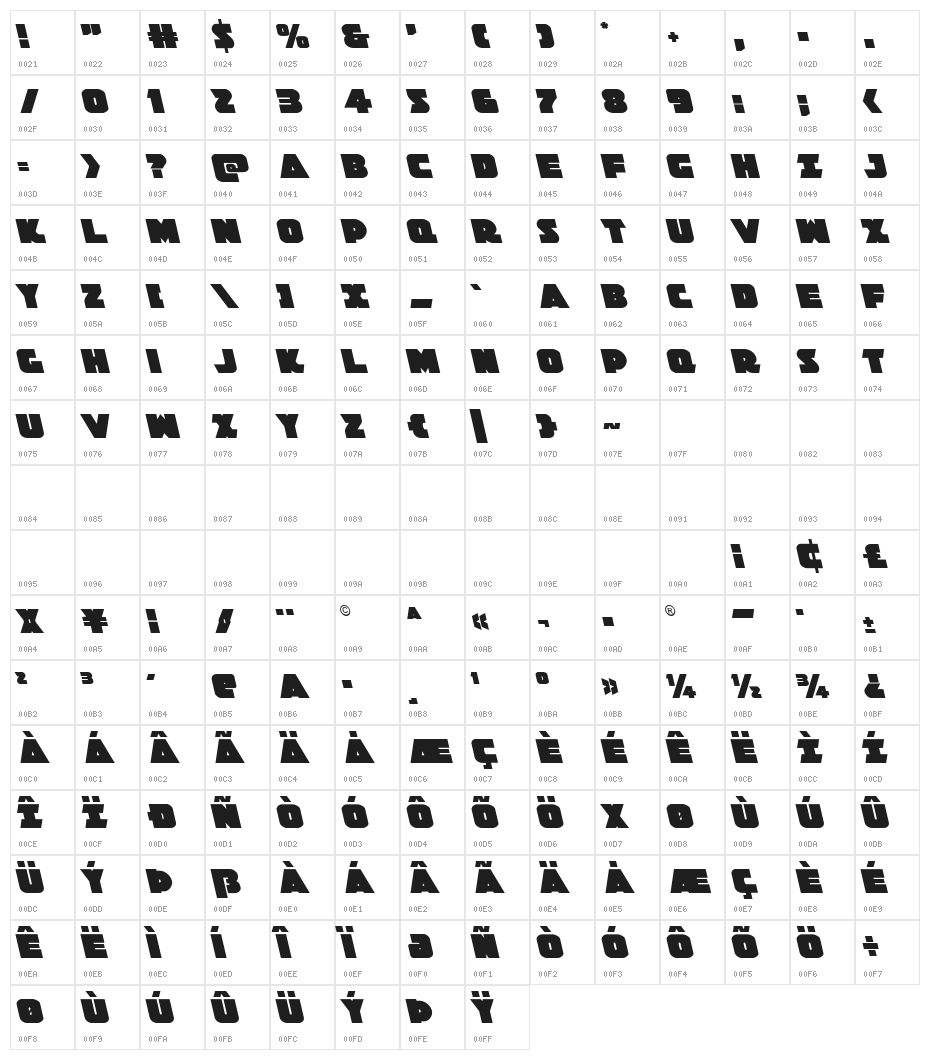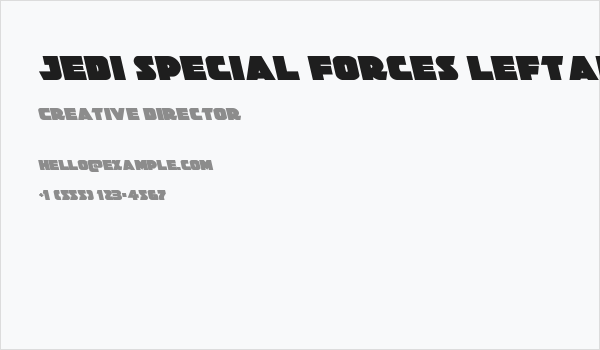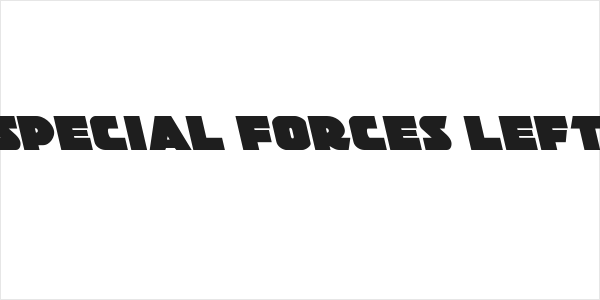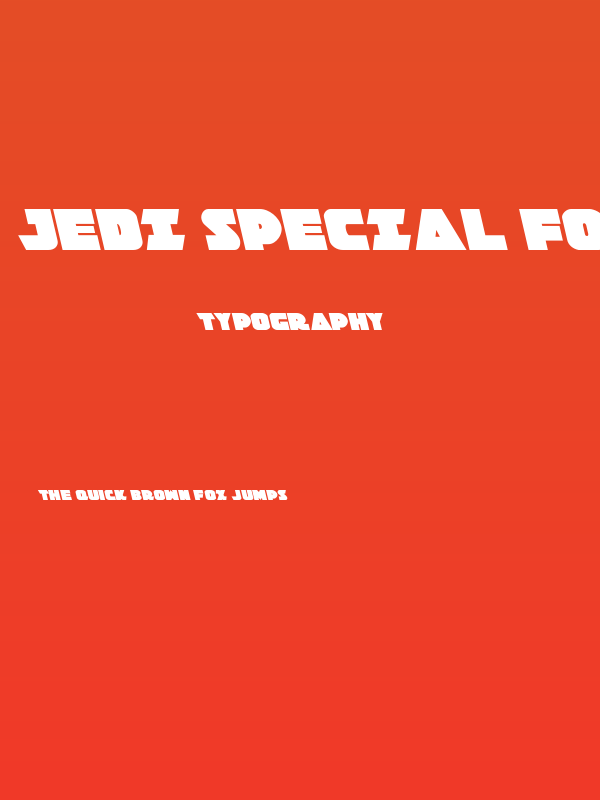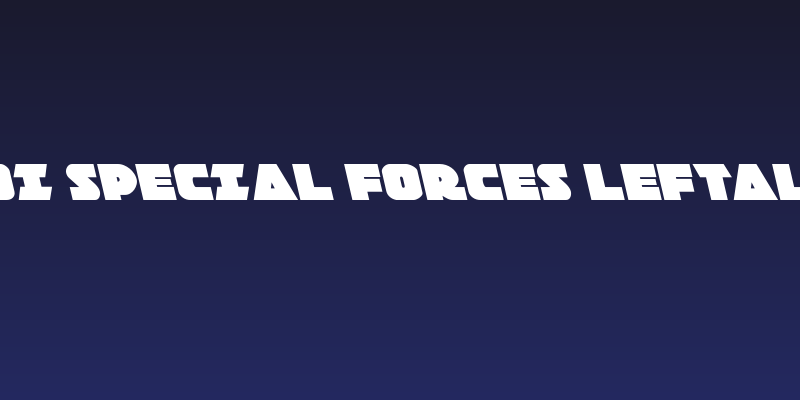
Jedi Special Forces Leftalic Font
Jedi Special Forces Leftalic Description
This font features a bold and dynamic style with a futuristic and angular design. The characters are heavily stylized, with sharp edges and a distinct slant to the left, giving it a sense of motion and energy. The uppercase letters are particularly striking, with a strong presence that commands attention. The numbers and special characters maintain the same bold and angular aesthetic, ensuring consistency across all glyphs. This font is ideal for projects that require a modern and impactful look, such as sci-fi themes or action-oriented designs.
| Proposed Projects | Ideal for sci-fi movie posters, video game titles, and futuristic branding. |